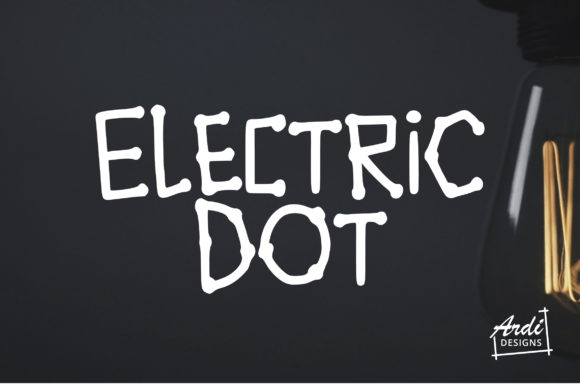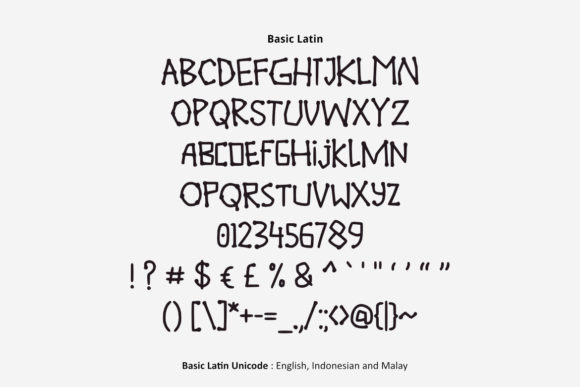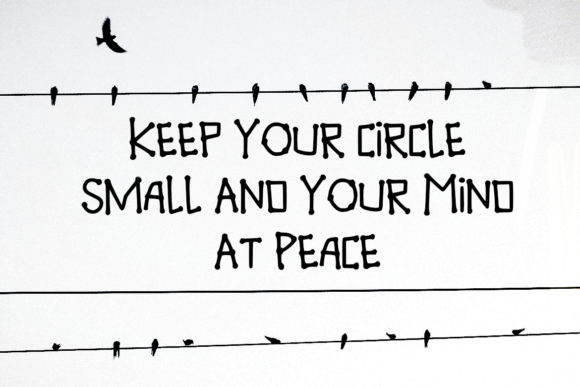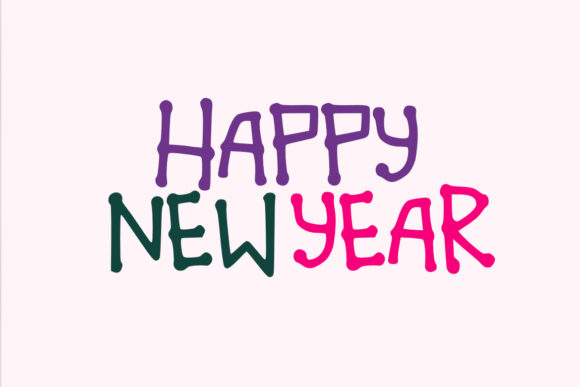
Electric Dot Font
About Electric Dot Font
Electric Dot is a friendly and fun handwritten font. Clean and a little bit quirky, this font is the perfect fit for all of your logos, branding, social media, and crafty DIY projects.